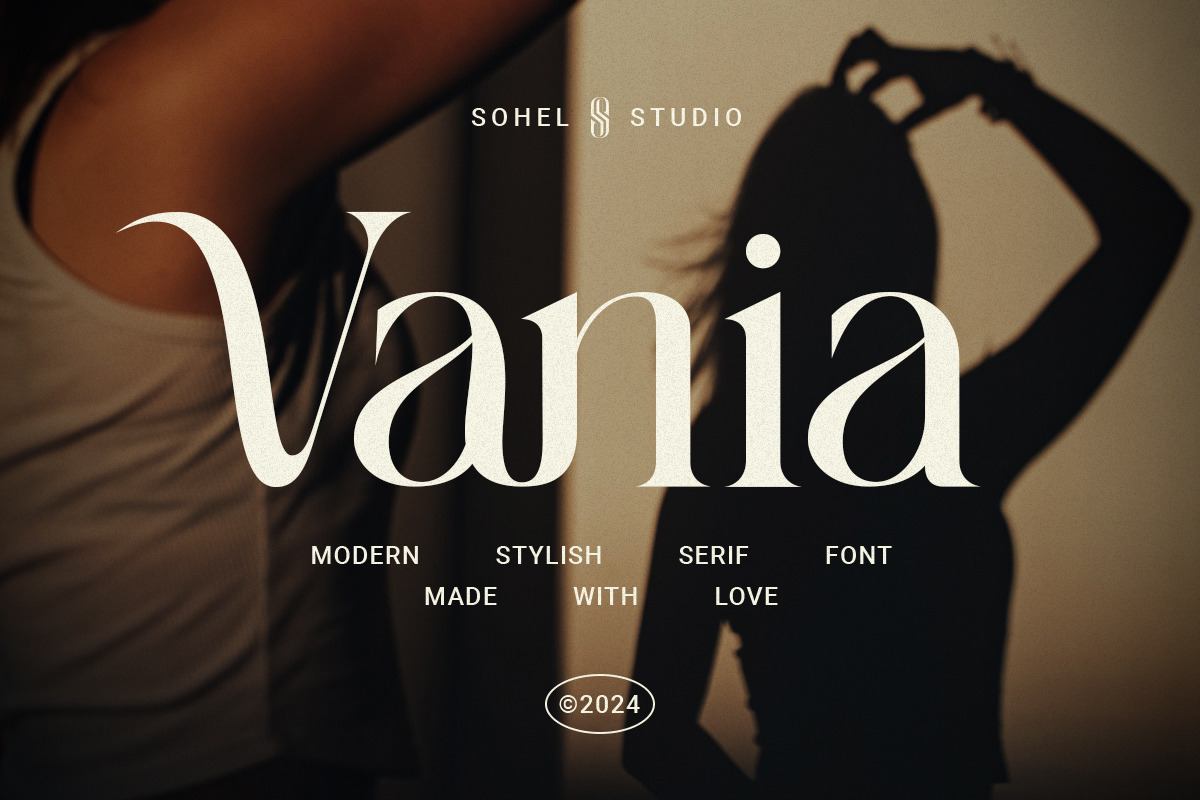
The Vania - Elegant Branding Typeface Free Download is a sophisticated and modern font designed for high-end branding, luxury logos, invitations, and other elegant design projects. With its refined lines and stylish details, this typeface adds a touch of class and professionalism to your designs. Please note, for commercial use, a license must be purchased. You can download it for free for testing purposes.
With its clean and timeless design, the Vania - Elegant Branding Typeface Free Download is perfect for projects that require a polished, luxury aesthetic. Whether you’re working on premium branding, product packaging, or event invitations, this font will give your work a distinctive and elegant look.